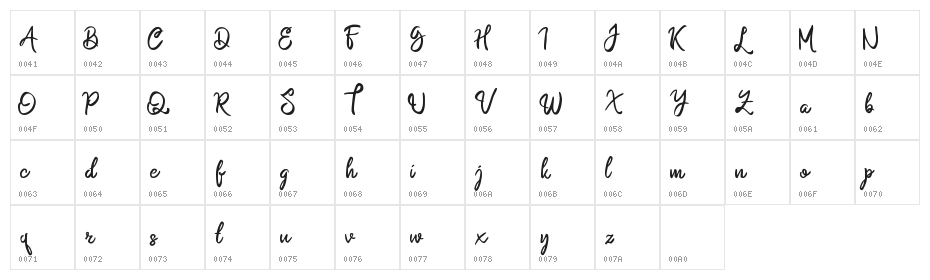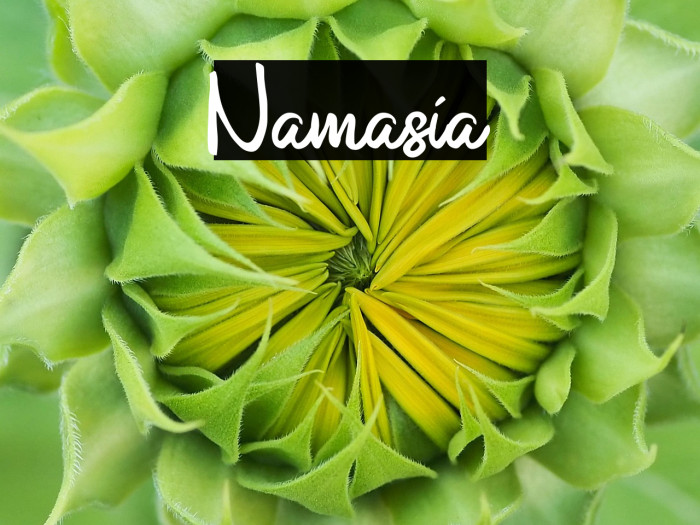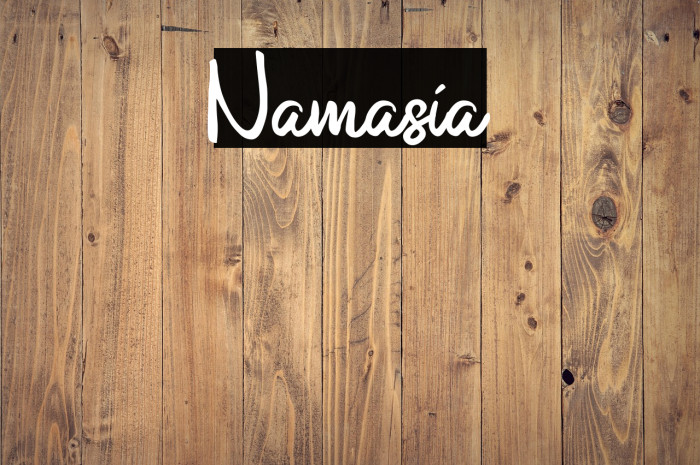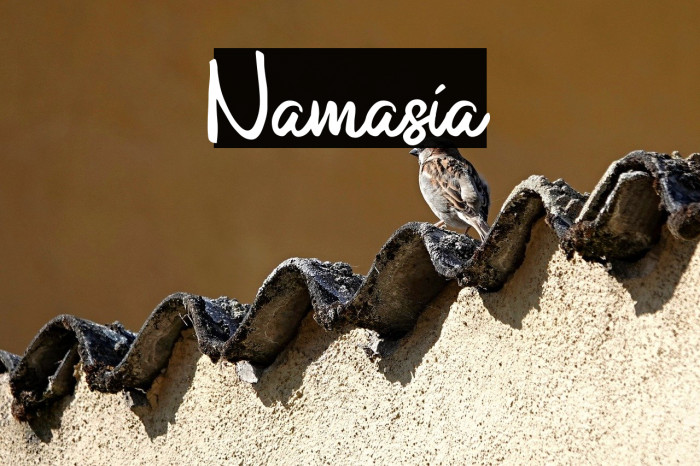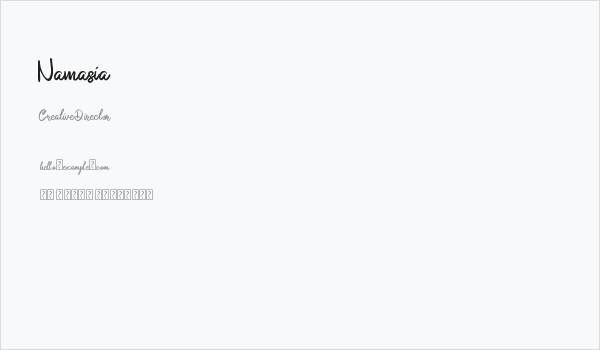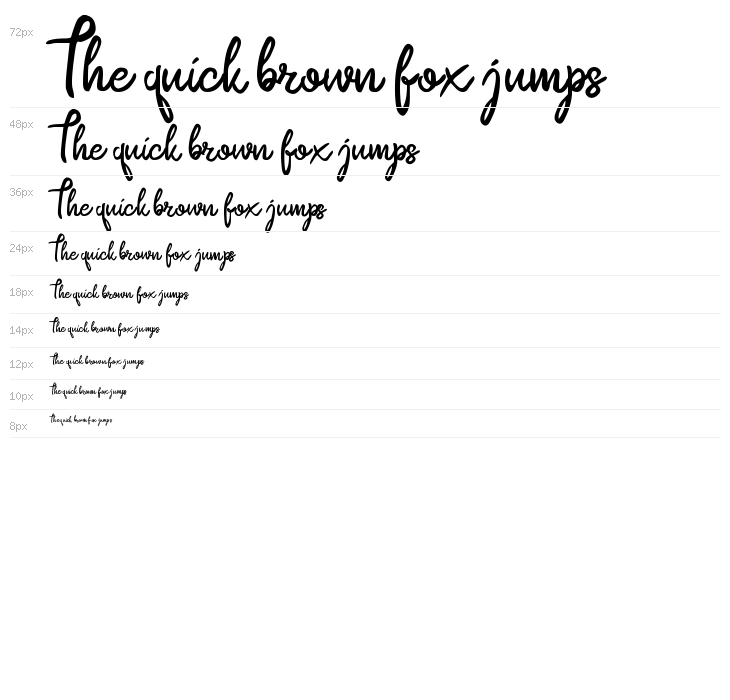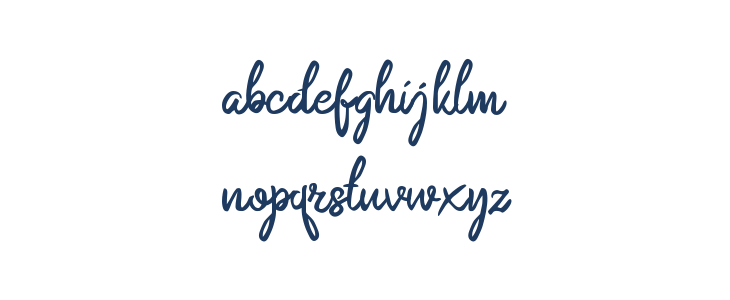
Namasia Font
Namasia Description
This font features an elegant and flowing script style, characterized by its cursive, handwritten appearance. The letters are interconnected, creating a seamless and fluid look that is both sophisticated and artistic. The uppercase letters exhibit a graceful flair with extended loops and swashes, while the lowercase letters maintain a consistent and smooth flow. The font's design is reminiscent of calligraphy, offering a sense of personal touch and creativity. It is well-suited for projects that require a touch of elegance and individuality, such as invitations, greeting cards, and branding materials. The overall style is decorative and expressive, making it ideal for capturing attention and conveying a sense of luxury and refinement.
| Proposed Projects | Ideal for wedding invitations, greeting cards, personal branding, and artistic projects. |